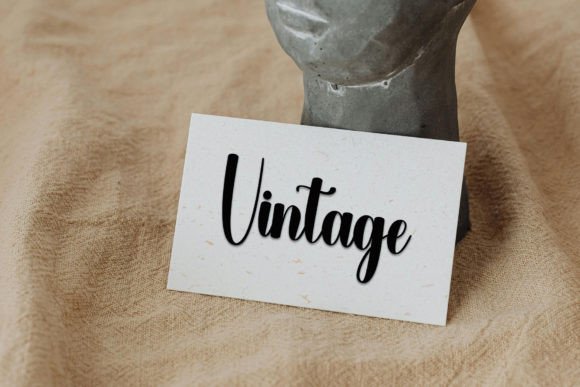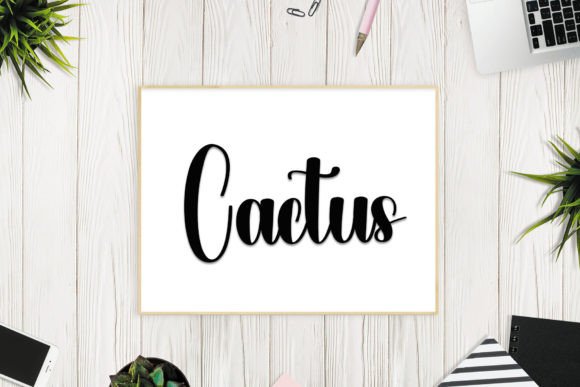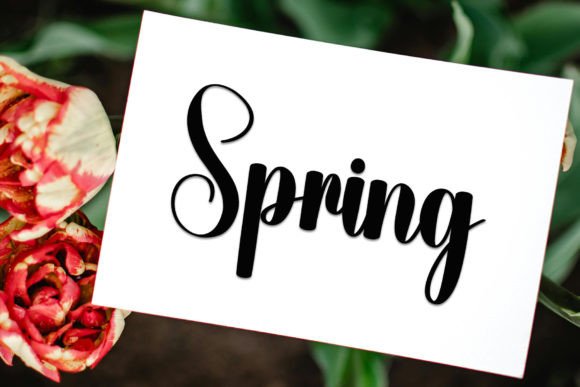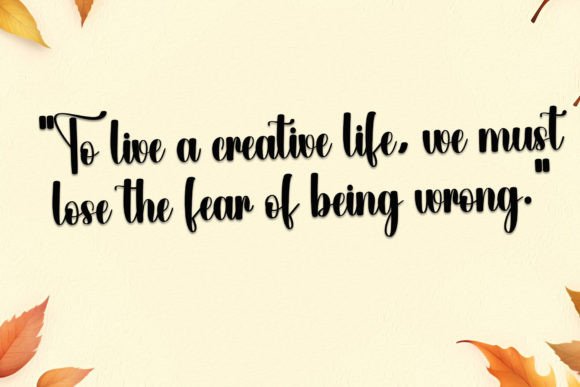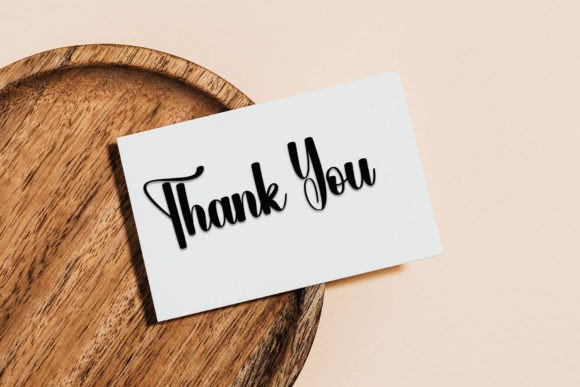
The Anime Font: A Charming Handwritten Style for Your Design Projects
A Personal Review of Anime Font
I’ve had the pleasure of working with the Anime font on several projects, and here’s what I think:
• ✨ Fluid strokes and organic lines: The Anime font has a unique, hand-drawn feel that’s perfect for creating a sense of warmth and personality in your designs.
• ✅ Versatile and adaptable: This font works beautifully for various design projects, from branding and invitations to social media graphics and more.
• 💫 Easy to read: Despite its casual, handwritten style, the Anime font is surprisingly legible, even at smaller sizes.
However, I do have to mention a few minor quirks:
• 🤔 Limited formal applications: While the Anime font is perfect for casual designs, it might not be the best fit for more formal projects, such as corporate reports or academic papers.
• ⚠️ Some letter spacing issues: In certain situations, the letter spacing can get a bit wonky, especially when using all caps or mixing with other fonts.
The Story Behind Anime Font
Legend has it that the Anime font was created by a young designer named Yui, who wanted to capture the essence of Japanese pop culture in a unique, handwritten style. Inspired by the vibrant streets of Tokyo and the fluidity of anime art, Yui poured her heart and soul into crafting a font that’s both playful and elegant.
Font Name Anime Font
What makes the Anime font so special? The Anime font’s fluid strokes, organic lines, and casual elegance make it perfect for adding warmth and personality to your designs.
Is the Anime font difficult to read? No, despite its handwritten style, the Anime font is surprisingly legible, even at smaller sizes.
Can I use the Anime font with other fonts? Yes, the Anime font pairs well with many other fonts, but be mindful of letter spacing and overall visual balance to ensure your design looks cohesive.